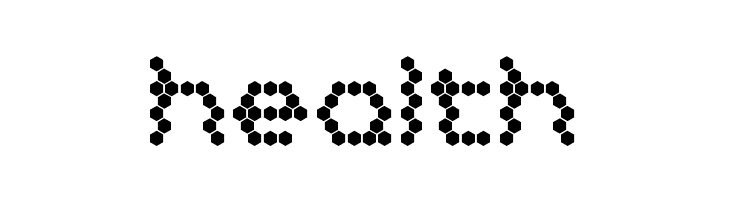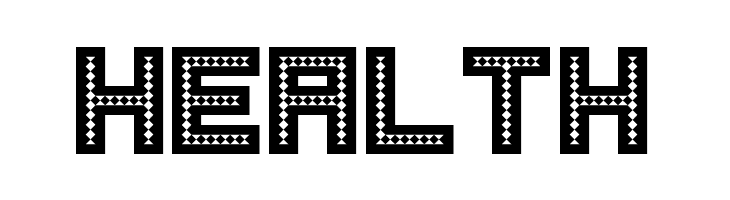
A decorative font made of heart shapes, ideal for romantic and playful designs.
( Alex Dale - www.behance.net/alexiandale )
A geometric, angular font with a modern and edgy style.
( Anastasia Fekete )
A geometric, modern font with sharp angles and clean lines.
( Anthony Robinson - www.redbubble.com/people/anfa/portfolio )
A bold, distressed font with a grunge, war-torn aesthetic.
( Axel Lymphos )
A pixelated, block-style font with a digital, futuristic aesthetic.
( Bonzer - Bonzer Herrbrecht - bonzer-concept.tumblr.com/ )
A multi-line, geometric font with a bold, modern aesthetic.
( Chequered Ink - chequered.ink/ )
A pixelated, retro-style font inspired by classic 8-bit video games.
( Chequered Ink - chequered.ink/ )
A playful, dotted font perfect for creative and whimsical designs.
( Chequered Ink - chequered.ink/ )
A bold, geometric font with triangular patterns, offering a futuristic and decorative style.
( Dan Speer - www.danspeer.co.uk )
A geometric, angular font with a modern and edgy design.